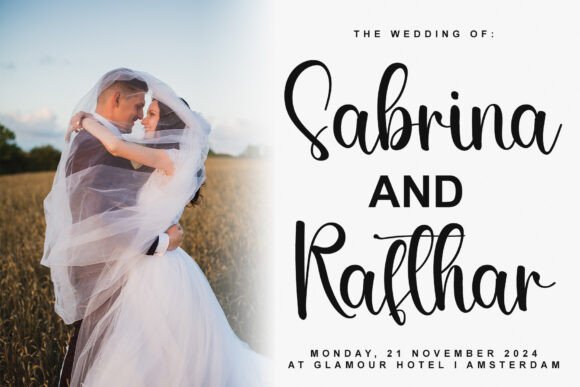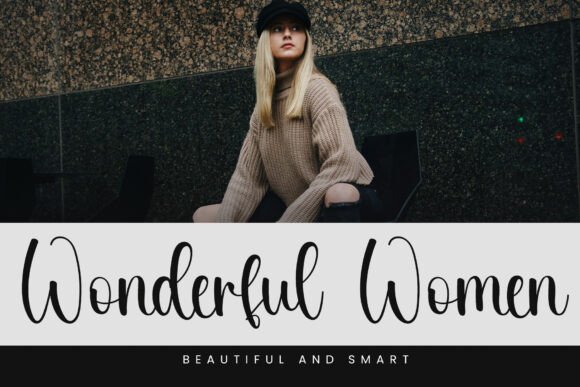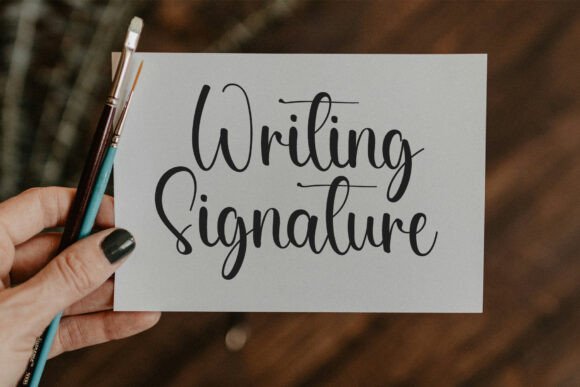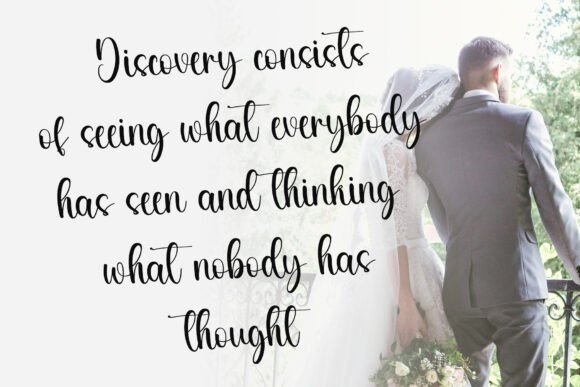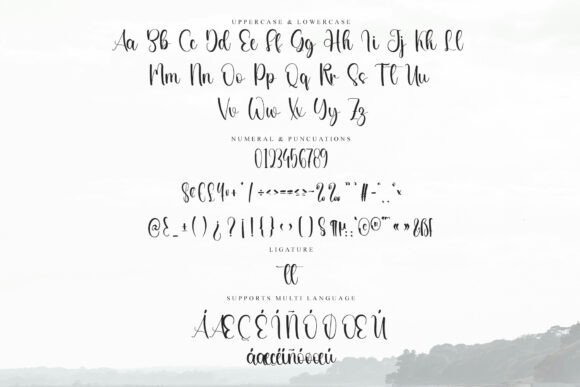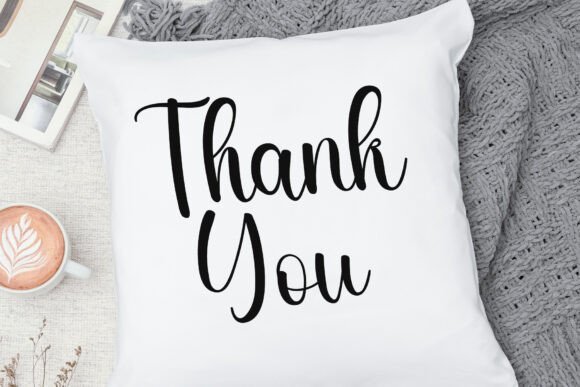
Introducing Blondes Font: Elevate Your Creativity with Elegance
Are you a designer, crafter, or DIY enthusiast looking for a font that can add a touch of magic to your creative projects? Look no further than Blondes Font, a beautiful script font that combines elegance with a whimsical flair. In this article, we’ll dive into the world of Blondes Font, exploring its features, uses, and benefits for designers and crafters alike.
What is Blondes Font?
Blondes is a carefully crafted script font that boasts a unique blend of sophistication and playfulness. With its flowing lines and delicate curves, this font is perfect for adding a touch of elegance to any creative project. Whether you’re working on a branding campaign, a DIY craft, or a social media post, Blondes Font is sure to impress.
Key Features of Blondes Font
• Magical Script Font: Blondes Font is a script font that features a whimsical, handwritten style that’s perfect for creating eye-catching headlines, titles, and quotes.
• Elegant and Refined: With its smooth lines and flowing curves, Blondes Font exudes elegance and sophistication, making it ideal for high-end branding and design projects.
• Versatile: Blondes Font can be used for a wide range of creative projects, from Instagram posts and stories to DIY crafts, calligraphy, and more.
• User-Friendly: This font is easy to read and works well in both digital and print formats, making it perfect for designers and crafters who want to create stunning visuals.
Uses for Blondes Font
Blondes Font is an incredibly versatile font that can be used for a variety of creative projects, including:
• Instagram and Social Media: Add a touch of elegance to your Instagram posts, stories, and bio with Blondes Font.
• DIY Crafts: Use Blondes Font to create beautiful calligraphy scripts for your DIY projects, such as handmade cards, gift tags, and more.
• Branding and Marketing: Elevate your brand with Blondes Font, perfect for logos, headlines, and titles.
• Stationery and Invitations: Create stunning stationery, invitations, and greeting cards with Blondes Font.
Blondes Font offers a range of benefits for designers and crafters, including:
• Time-Saving: With Blondes Font, you can create stunning visuals in no time, saving you hours of design time.
• Unique and Creative: This font offers a unique and creative way to express yourself, adding a personal touch to your designs.
• High-Quality: This font is designed with high-quality in mind, ensuring that your designs look professional and polished.